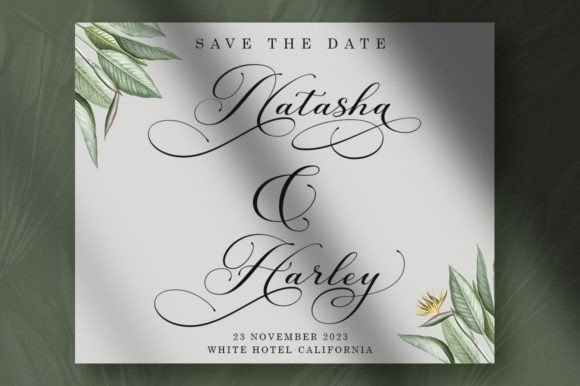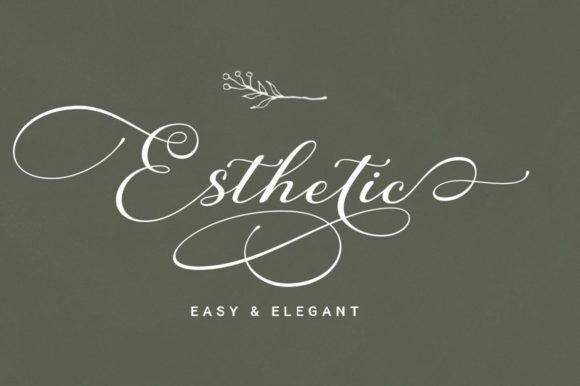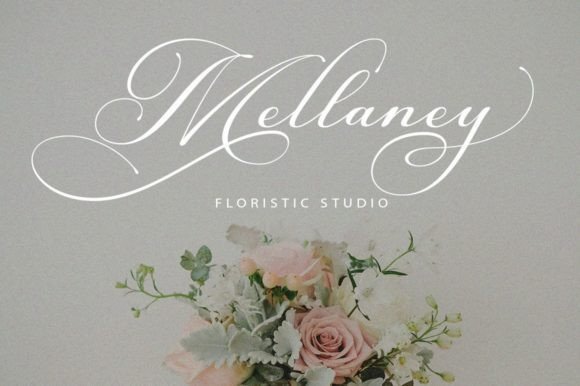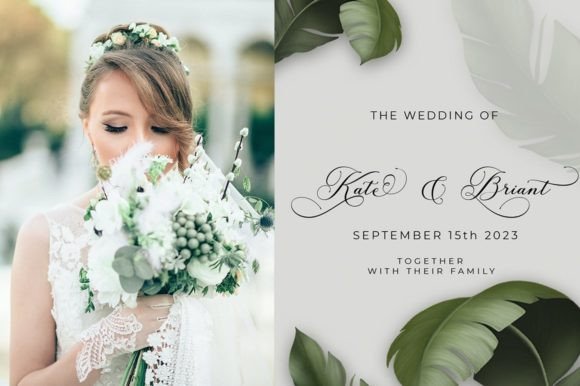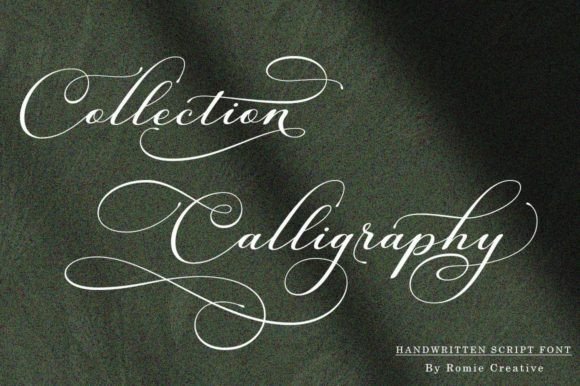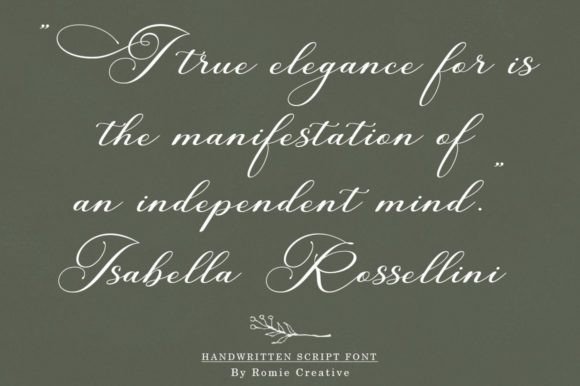
The Quest for the Perfect Font: Discovering Canberra
I still remember the time I was working on a wedding invitation project, and I just couldn’t seem to find the right font. My client wanted something elegant, feminine, and unique, but I was coming up blank. That’s when I stumbled upon Canberra, a beautiful handwritten font that stole my heart. In this article, I’ll share my experience with Canberra, its features, and how to make the most of it in your designs.
First Impressions: What I Love About Canberra
Canberra is a classy handwritten font with distinctive curves that make it perfect for feminine-style projects. Here are some of the things I love about it:
• ✨ Elegant and sophisticated feel
• ✅ Start-and-end engraved in upper and lower case
• 💕 Beautiful ligatures that add a touch of whimsy
• 🎉 Perfect for wedding design projects, fashion, greetings, invitations, social media, and more
The Not-So-Perfect: Small Quirks and Limitations
While Canberra is an amazing font, it’s not without its quirks. Here are a few things to keep in mind:
• 🤔 Some characters may not work well in very small sizes
• ⚠️ Limited availability of certain glyphs, but we’ll get to that later
Exploring Alternatives: Similar Fonts to Canberra
If you love Canberra, you might also enjoy these similar fonts:
• Lilyana: A elegant and refined script font with a similar feel to Canberra
• Bramble: A whimsical and feminine font with a more rustic feel
• Corbel: A elegant and sophisticated font with a similar classic feel
• Alex Brush: A beautiful handwritten font with a more relaxed, casual feel
The Story Behind Canberra: Designer Inspiration
Canberra was designed with the intention of creating a beautiful, elegant font that would capture the essence of feminine style. The designer wanted to create a font that would be perfect for wedding invitations, fashion branding, and other feminine projects. With its distinctive curves and beautiful ligatures, Canberra is sure to become a favorite among designers.
Author Romie Creative
Q: What type of projects is Canberra best suited for?
A: Canberra is perfect for wedding design projects, fashion, greetings, invitations, social media, and more.
Q: Is Canberra available in multiple languages?
A: Yes, Canberra supports multiple languages.